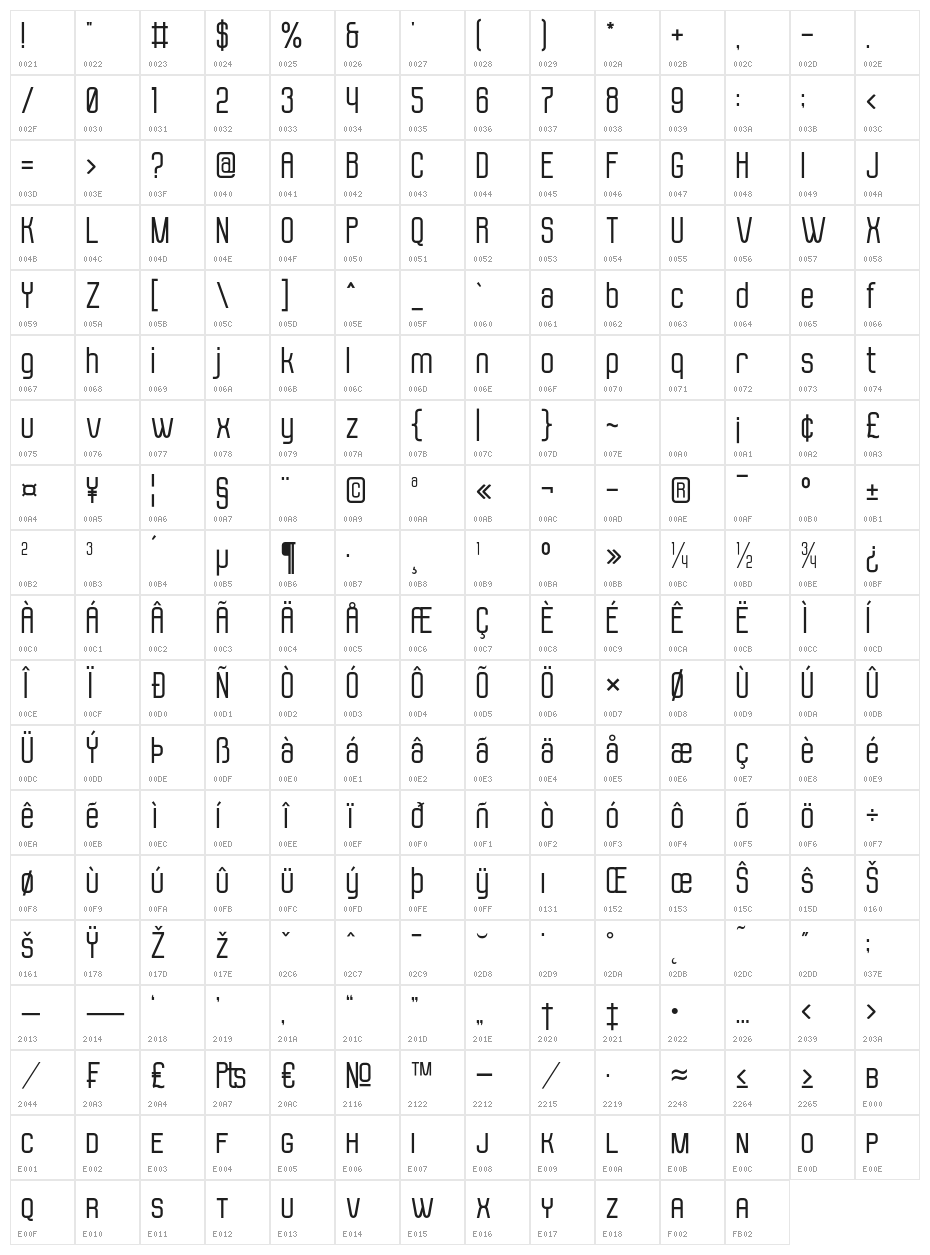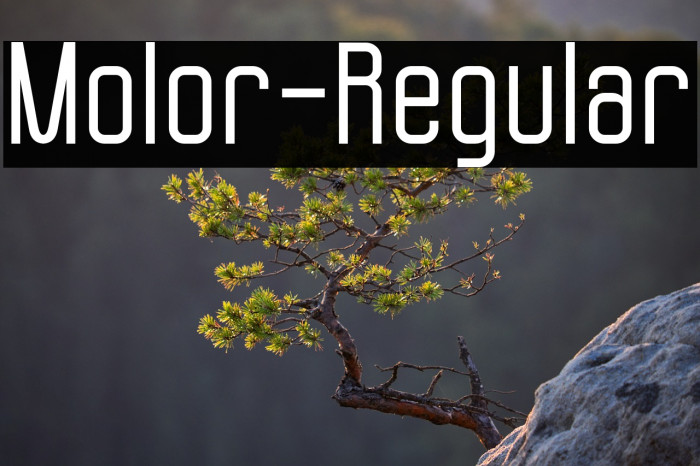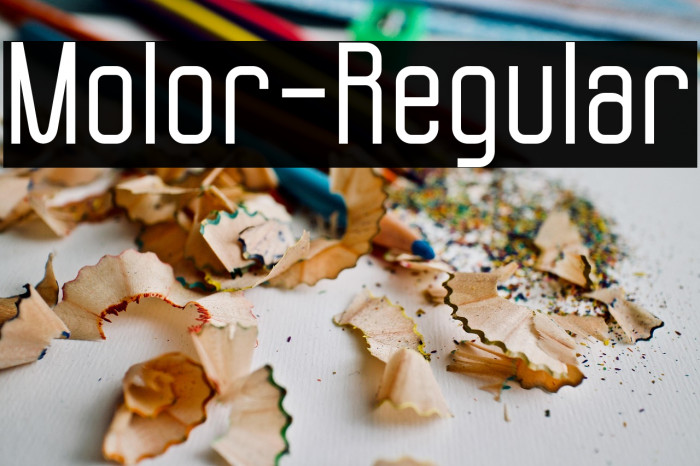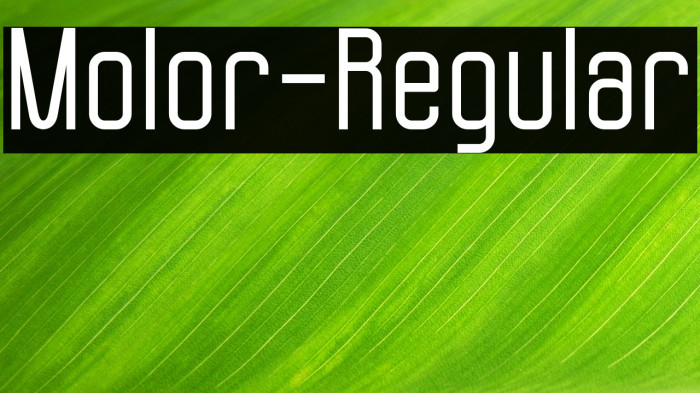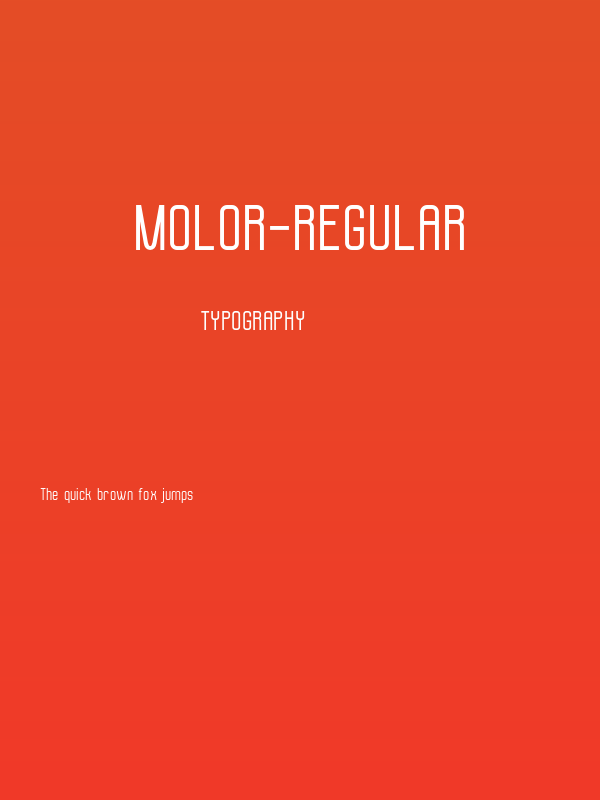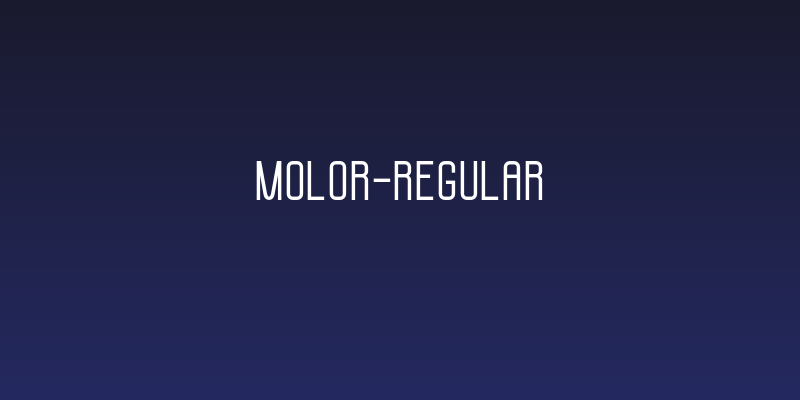
Molor-Regular Font
Molor-Regular Description
This font features a modern, geometric design with clean, straight lines and a uniform stroke width. The characters are tall and narrow, giving it a condensed appearance. The uppercase letters are particularly elongated, while the lowercase letters maintain a consistent height, enhancing readability. The numerals and special characters are designed to match the overall sleek and minimalist aesthetic. This font's simplicity and clarity make it versatile for various design applications.